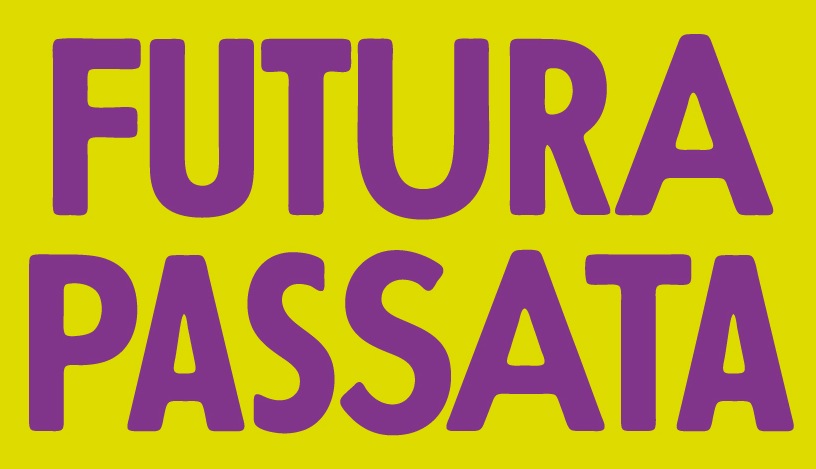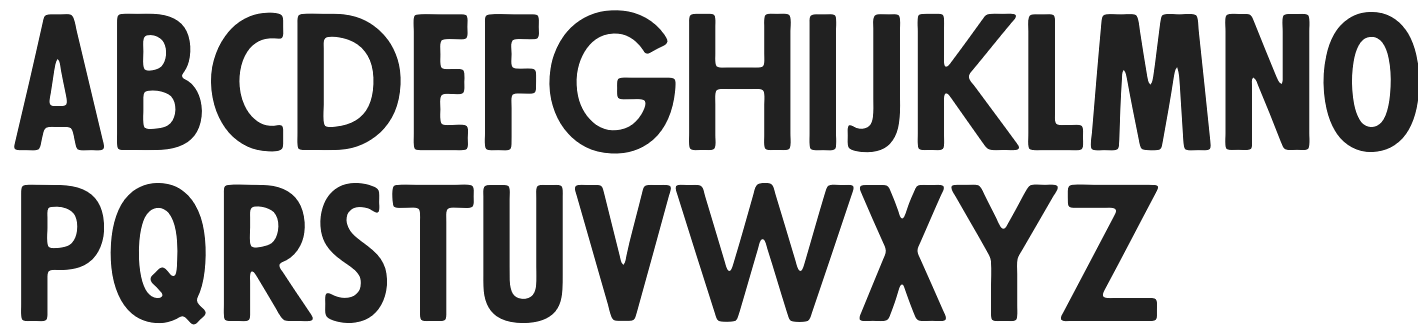
AlfaType [Joseph Miceli]
Graduate of the Rietveld Academie in Amsterdam. Born in Syracuse, Sicily, he spent half of his life in New York City, and studied for four years in The Netherlands. He worked in Lithuania with a group called Alfa60, and is now based in Turin.
His typefaces:
• Equo (2006). A VAG Round style display family which also includes Equo Stencil Caps, Equo Extended and Equo Extra Fat.
• Shaolin Caps.
• Stout Caps (revised in 2015).
• Frank-Latin. A wide wedge-serifed face.
• Crasto. A serif family.
• MM Vinny. A multiple master family designed for use by the cosa nostra.
• Yorker. Based on The NewYorker.
• MM Charlie or Charlie Grotesque (2013). A sans typeface family in the American style of Morris Fuller Benton.
• Artissima Condensed. A dada poster font, now called Altissma Condensed.
• Romano Grotesque. Angular, chiseled: revised in 2015.
• Passata. A rounded all caps version of Futura that combines two widths of a wood type version of Futura for use in posters. Initially, this font was called Futura Passata.
• Novalis Condensed.
• Bianco. A bespoke sans created for Nero magazine). Accompanied by Bianco Serif (used in some sections of The New York Times).
• Lago Sans. A geometric superfamily.
• Arial Grotesque.
• Tratto (2018). A sans.
• Beaux. An all caps display typeface. /UL>